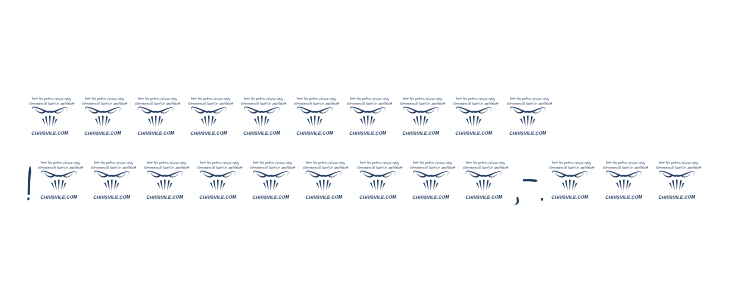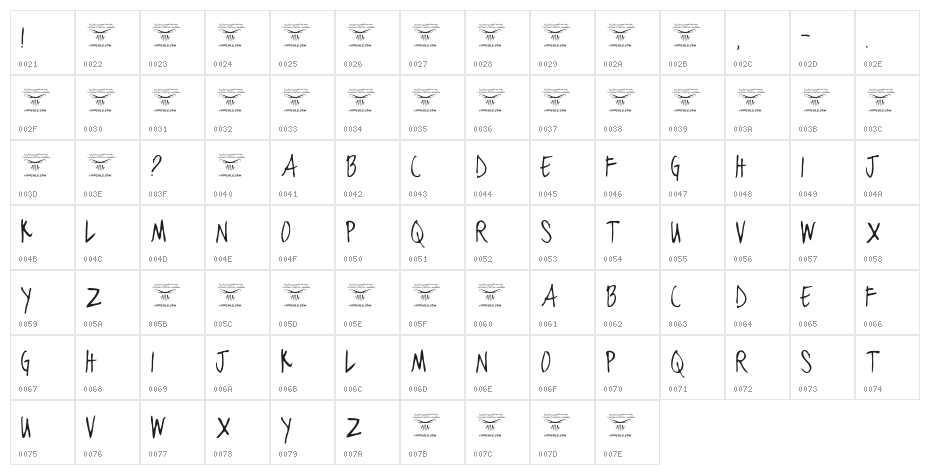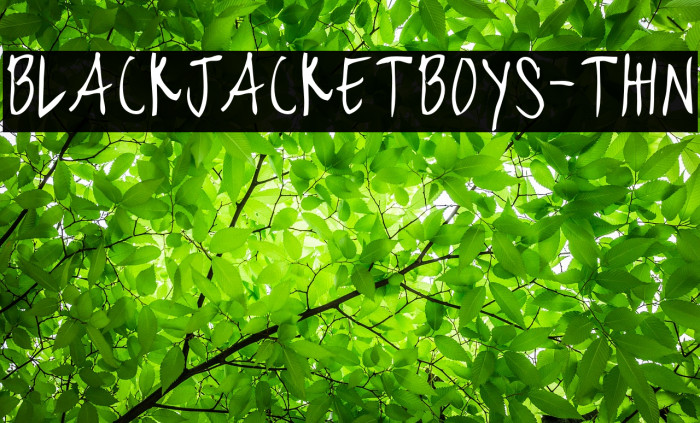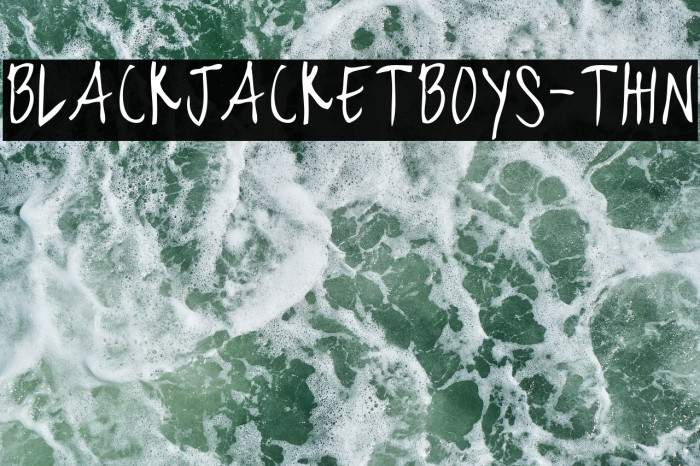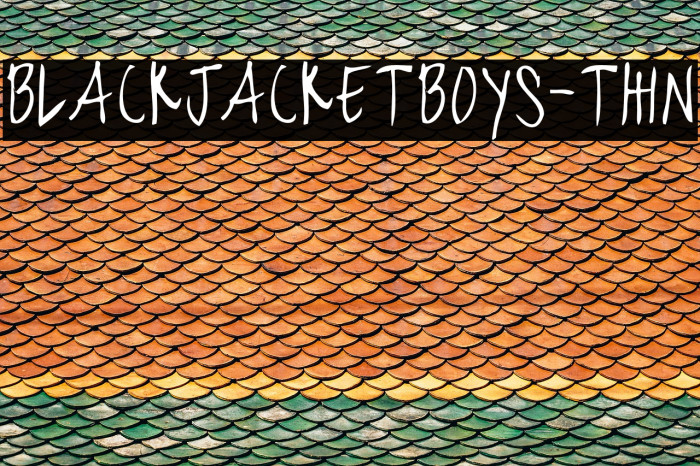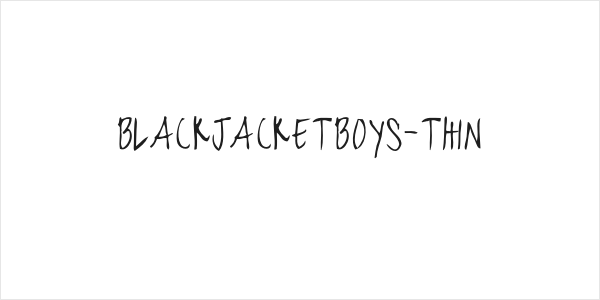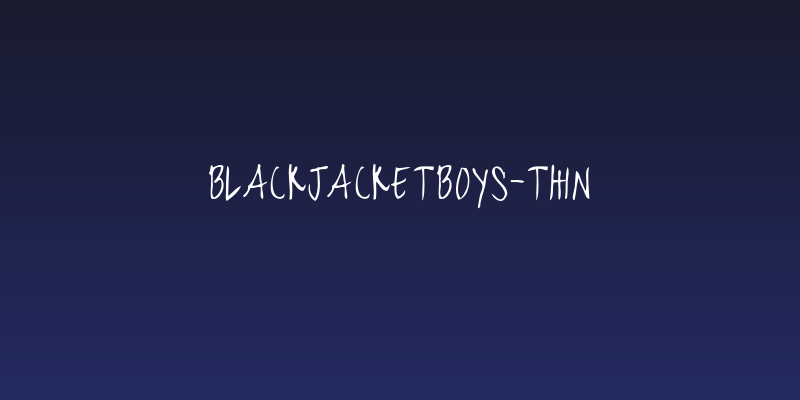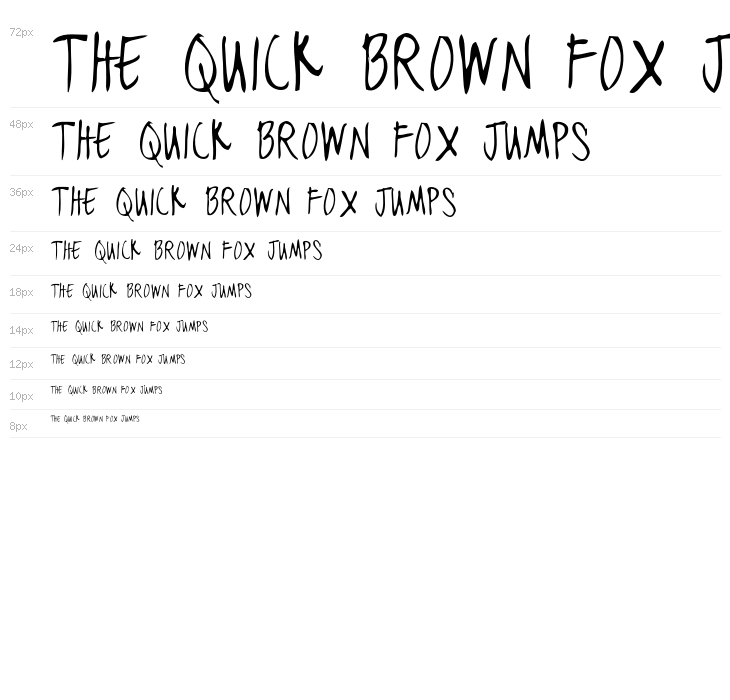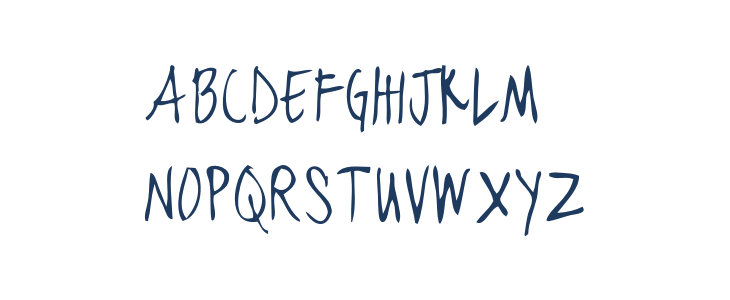
blackjacketboys-Thin Font
blackjacketboys-Thin Description
This font features a handwritten style with a casual and playful appearance. The letters are slightly irregular, giving it a natural and organic feel. The strokes are thin and consistent, with a slight slant that adds to its informal charm. The uppercase and lowercase letters maintain a cohesive look, while the numbers and special characters blend seamlessly with the overall design. This font's unique character makes it suitable for projects that require a personal touch or a creative flair.
| Proposed Projects | Ideal for greeting cards, invitations, personal branding, and creative projects that require a handwritten touch. |